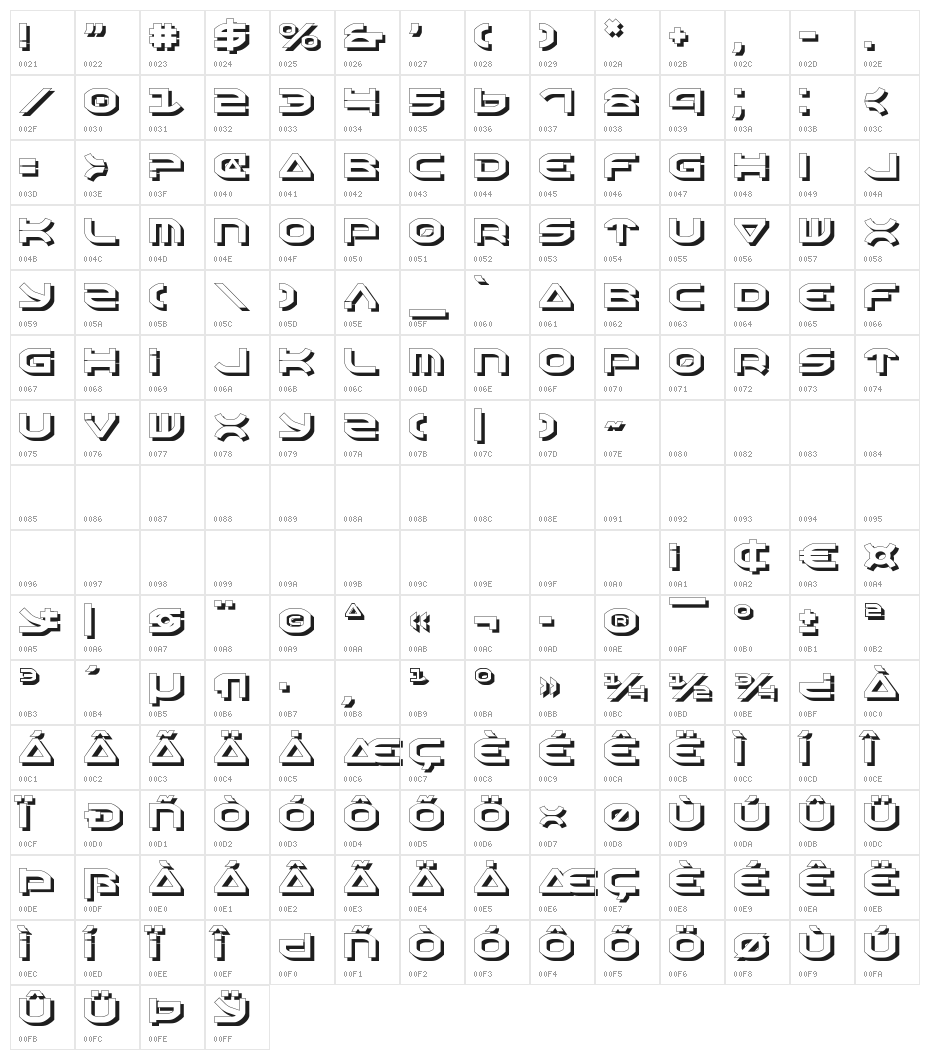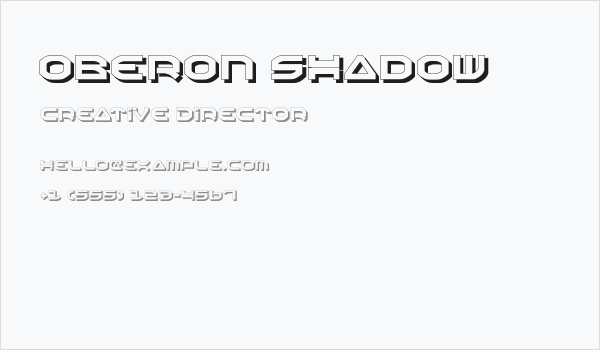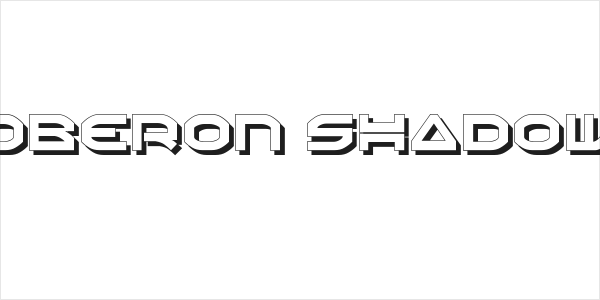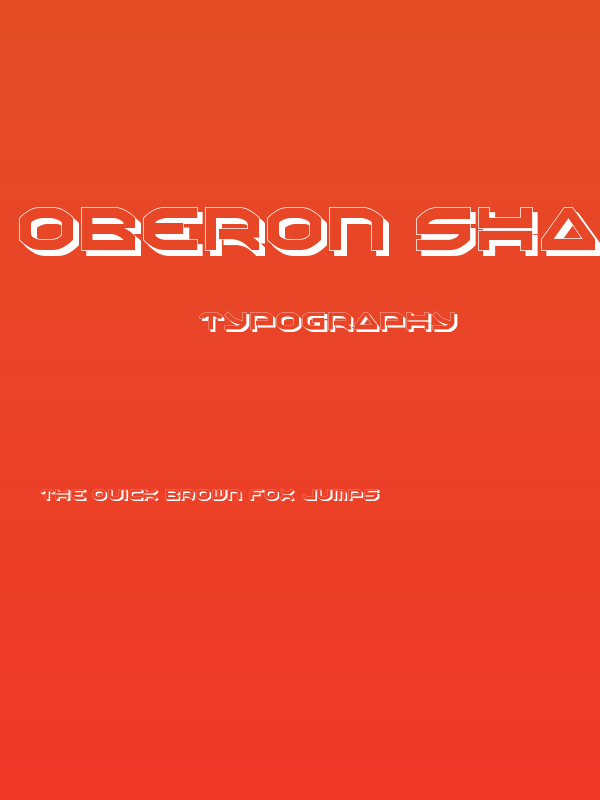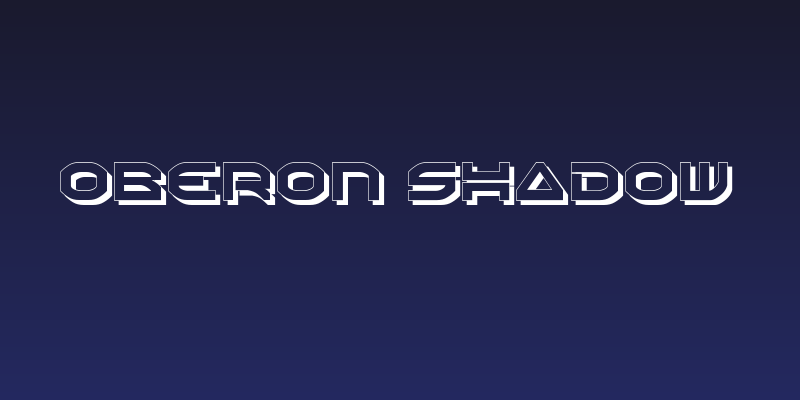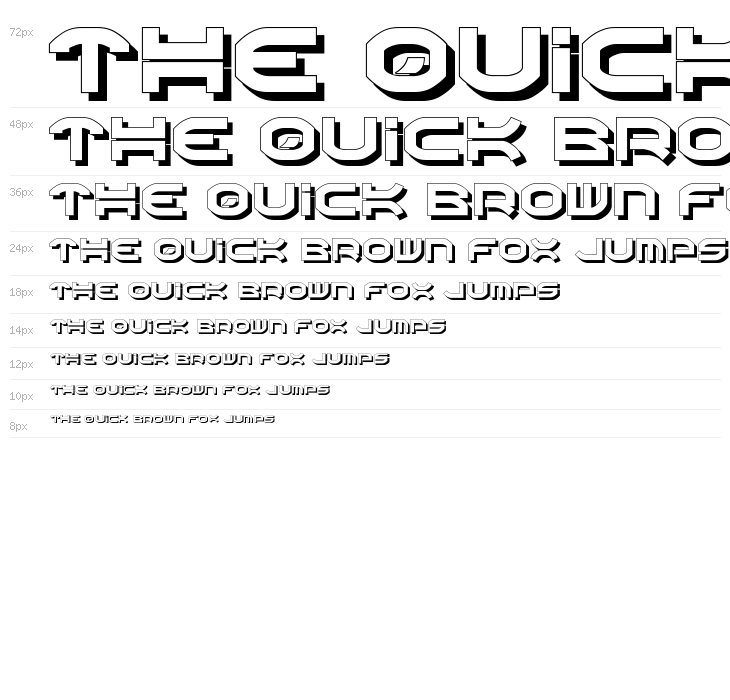
Oberon Shadow Font
Oberon Shadow Description
This font features a bold, geometric design with a distinct shadow effect that gives it a three-dimensional appearance. The characters are constructed with sharp angles and clean lines, creating a futuristic and dynamic look. The shadow adds depth and enhances the visual impact, making it ideal for eye-catching designs. The uppercase and lowercase letters maintain a consistent style, while the numerals and special characters complement the overall aesthetic. This font is perfect for projects that require a modern and edgy feel.
| Proposed Projects | Ideal for posters, logos, video game graphics, and futuristic-themed designs. |